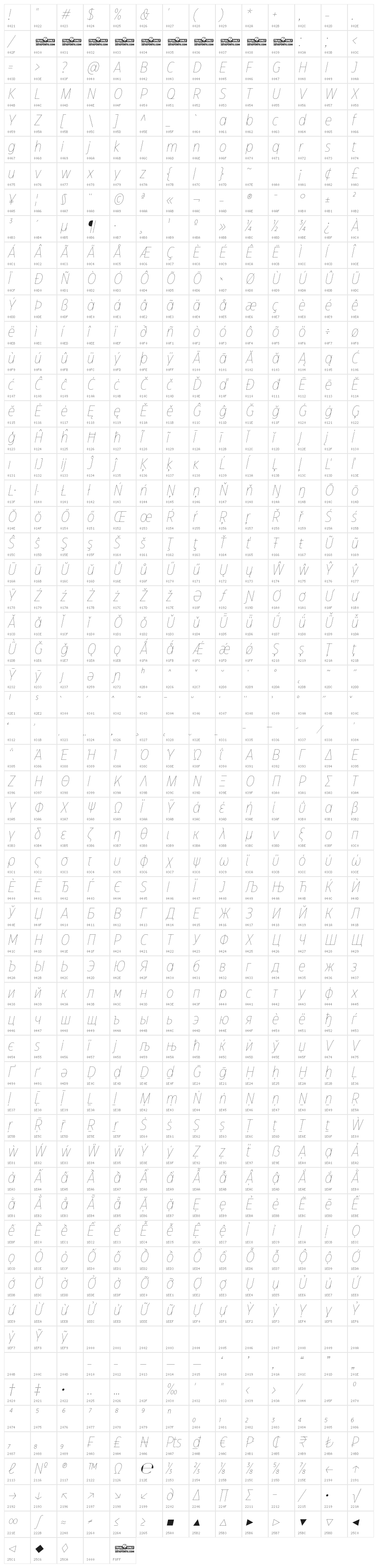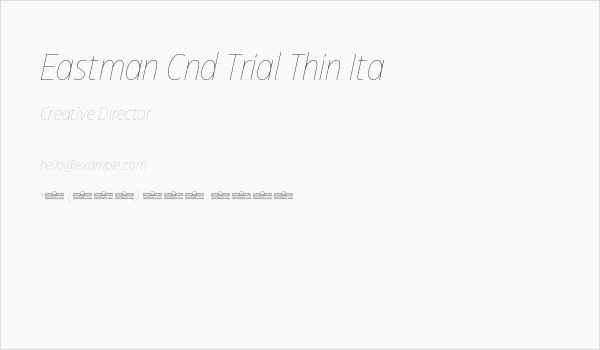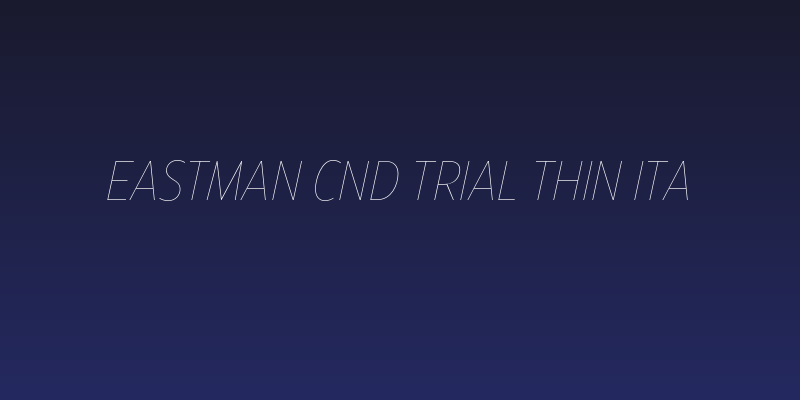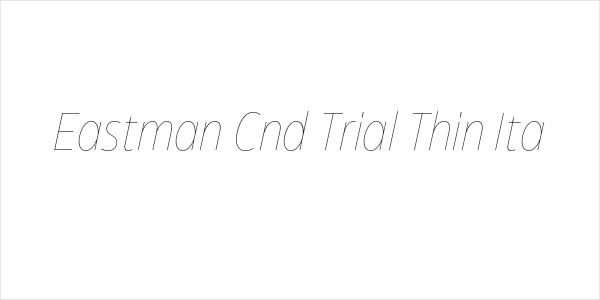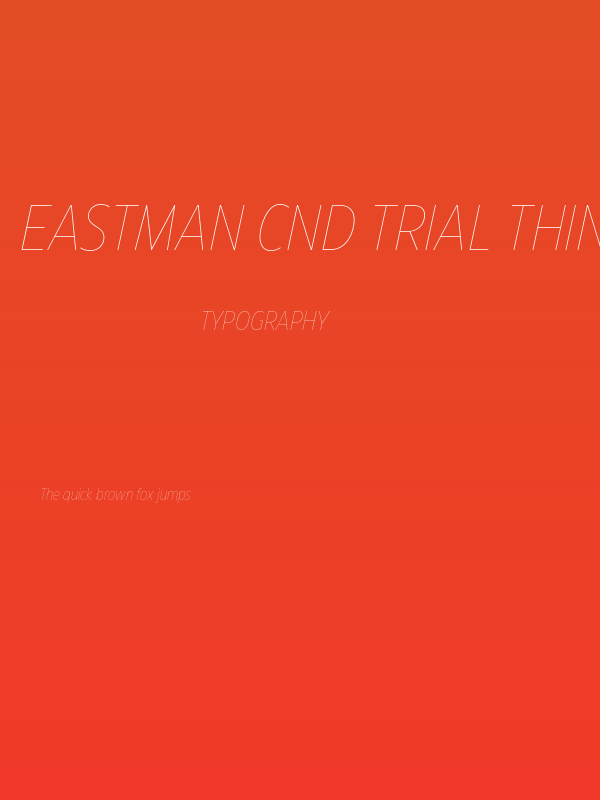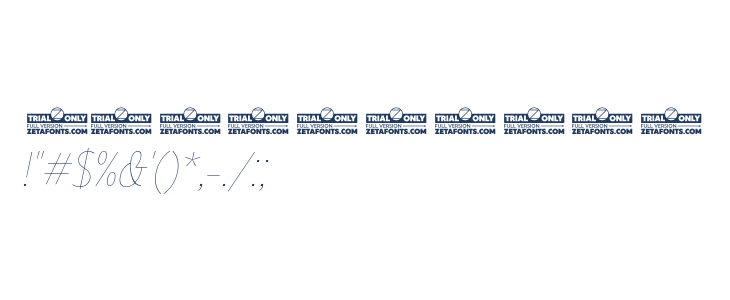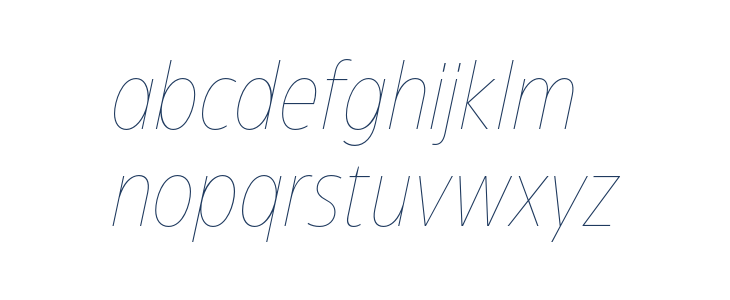
Eastman Cnd Trial Thin Ita Font
Eastman Cnd Trial Thin Ita Description
This font features a sleek and elegant design with thin, elongated characters that convey a sense of modernity and sophistication. The letters are slightly italicized, adding a dynamic and fluid appearance. The overall style is minimalistic, with clean lines and a refined aesthetic. The uppercase and lowercase letters maintain a consistent style, providing a harmonious look. The numerals and special characters are designed with the same thin strokes, ensuring uniformity across all elements. This font is ideal for projects that require a contemporary and stylish touch.
| Proposed Projects | Ideal for fashion magazines, luxury branding, modern websites, and elegant invitations. |